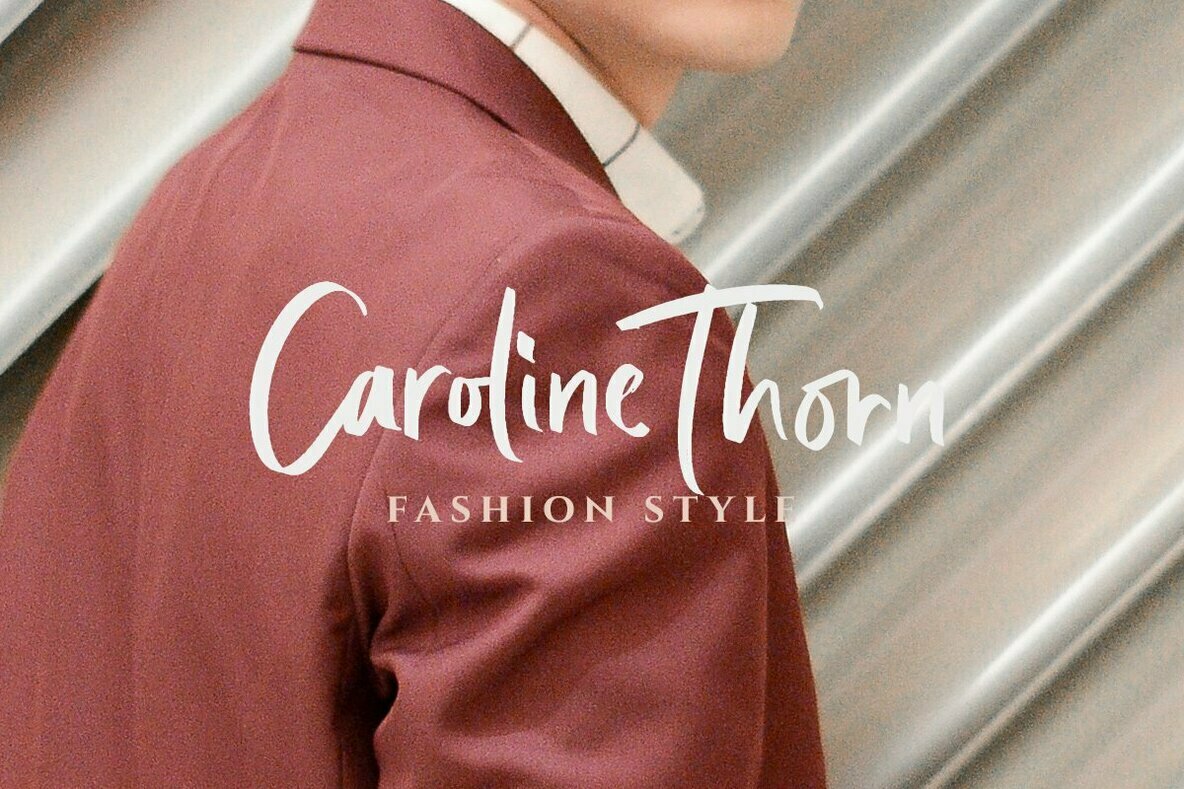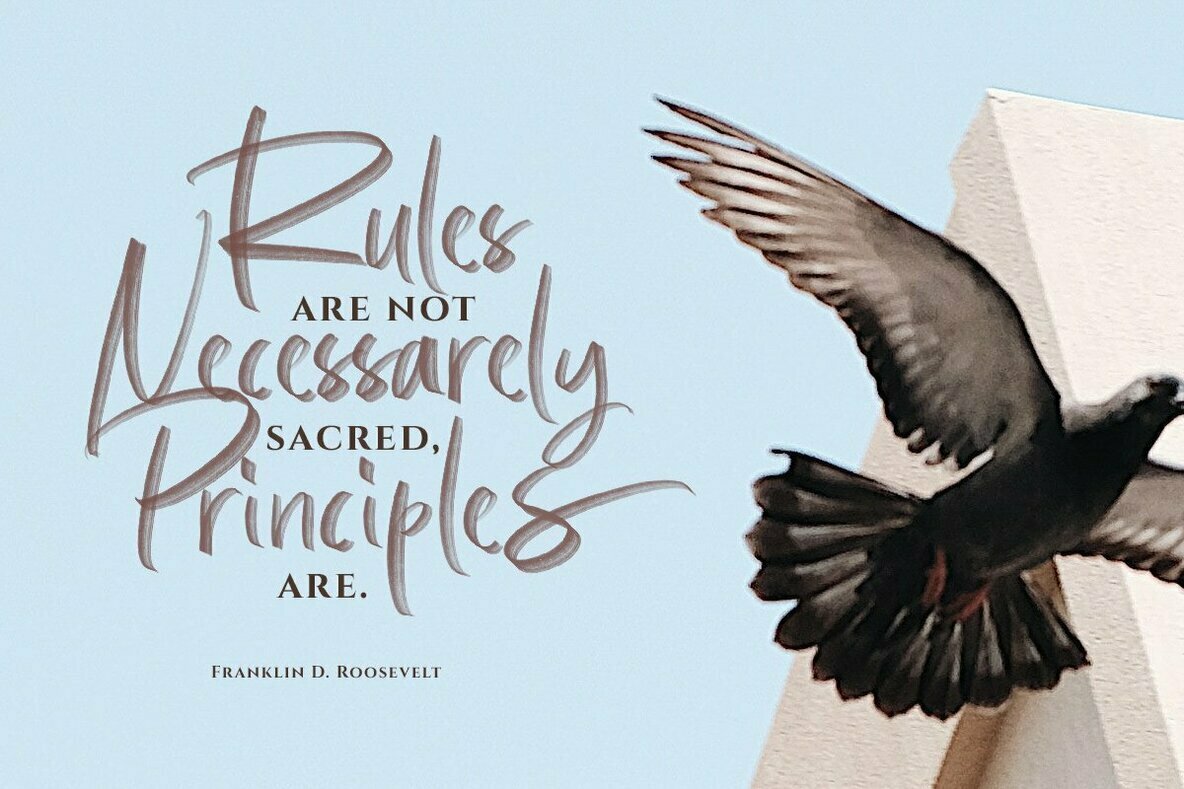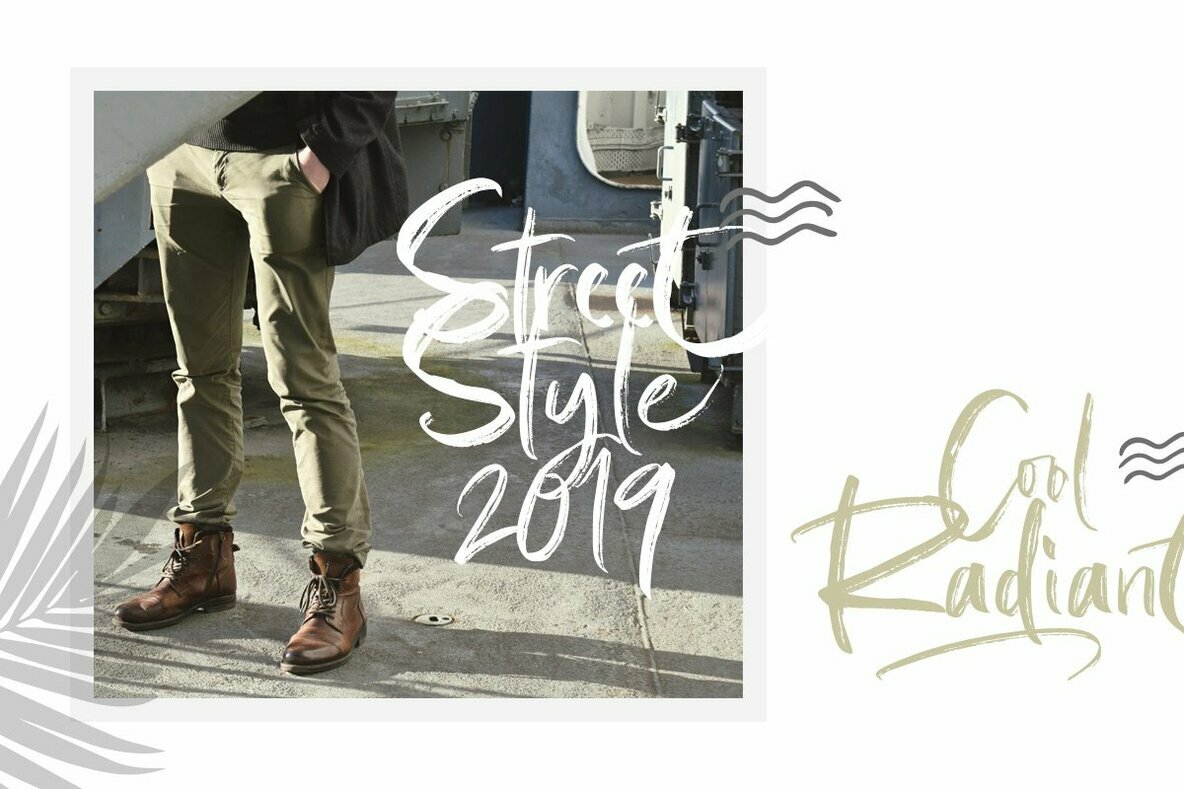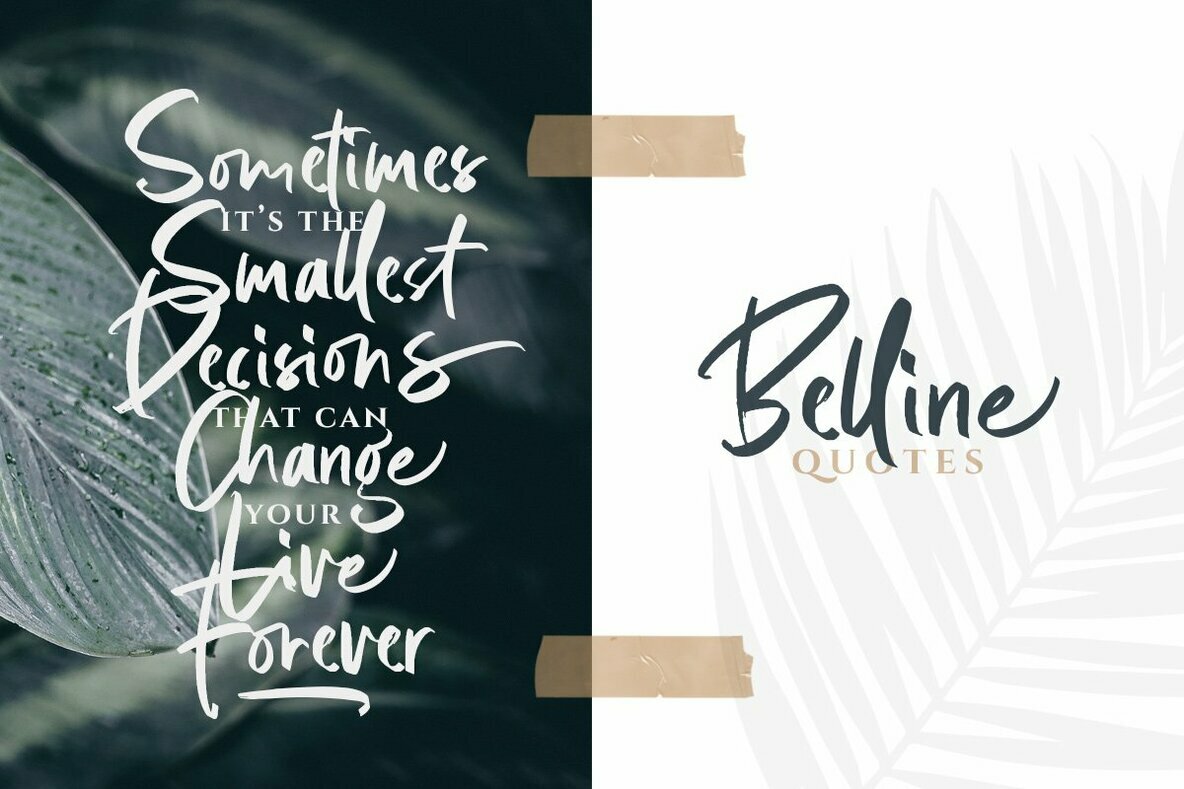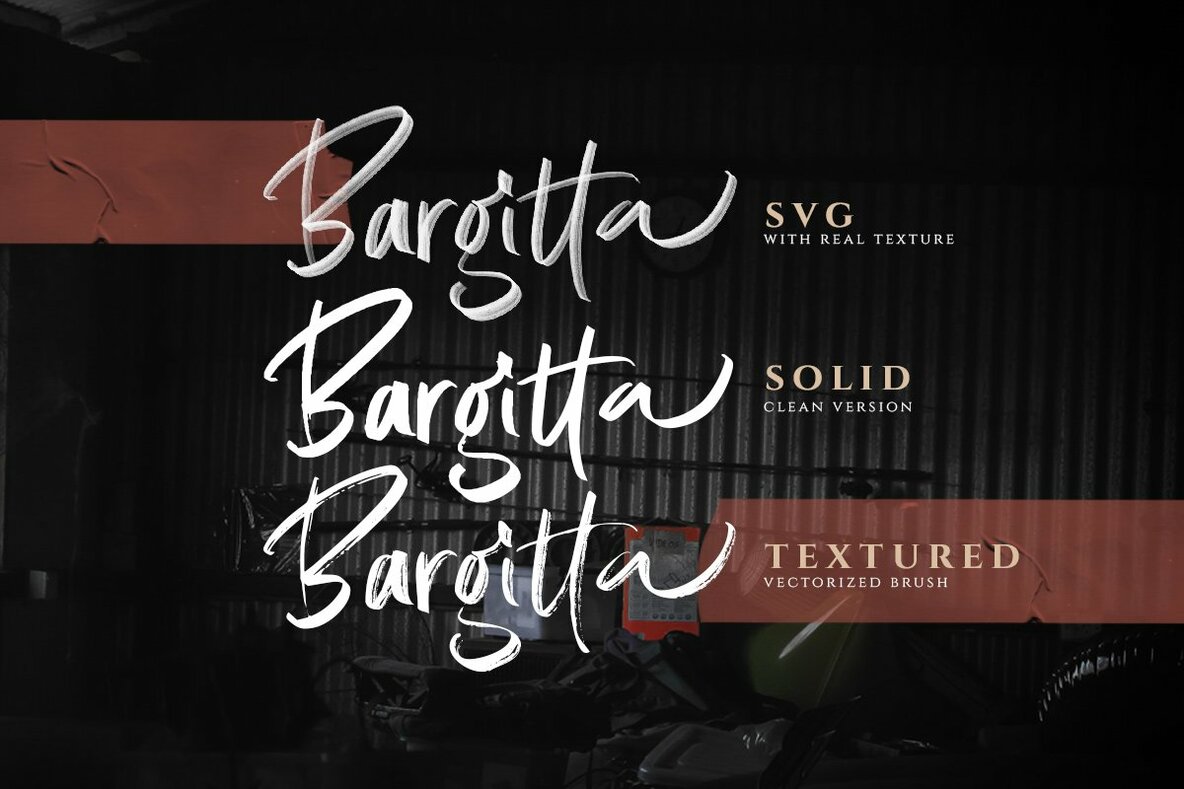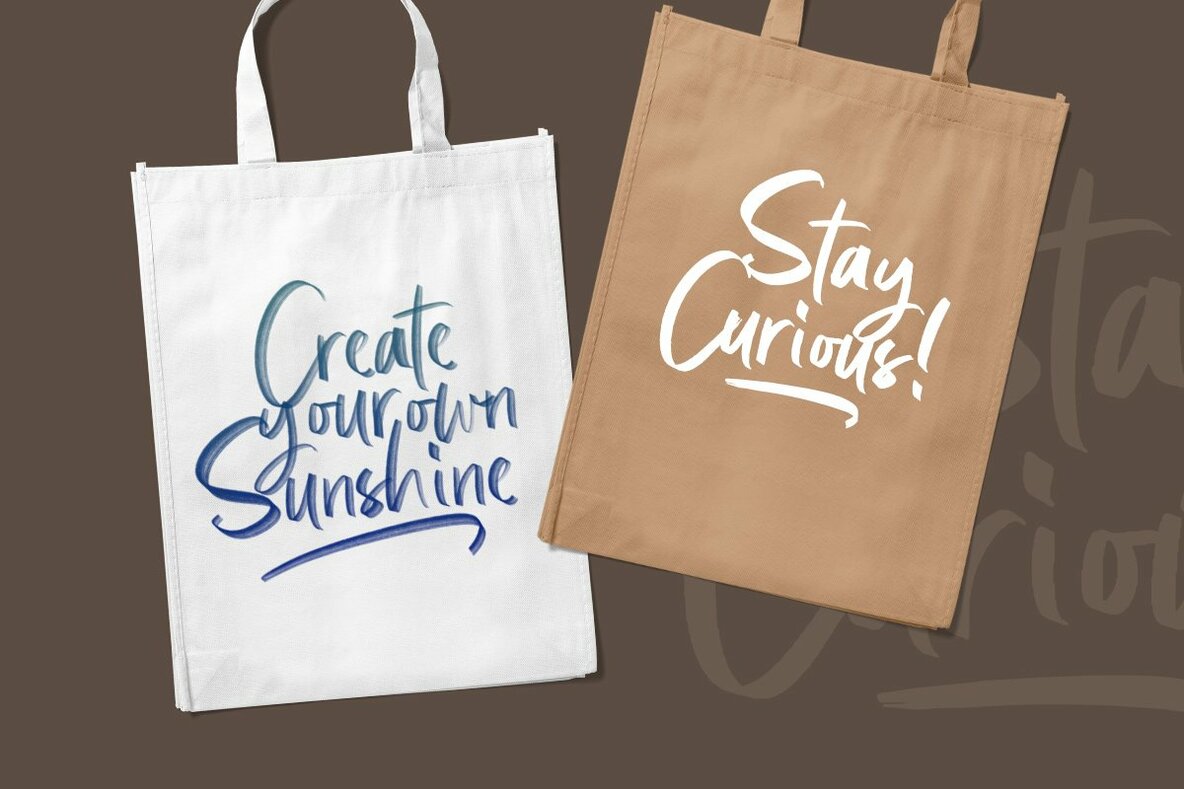
Bargitta Script - SVG Font
Bargitta Script by Letterhend Studio is a sophisticated font that effortlessly combines artistic flair with practicality, offering three distinctive styles to suit a wide range of design projects: Textured SVG, Textured Vector Rough, and Solid. This script typeface exudes charm and elegance, making it an ideal choice for corporate branding, logos, documents, social media design, presentations, and print design. Its adaptability extends to web projects, ensuring consistency across various digital platforms. With its comprehensive range of features and styles, Bargitta Script is poised to enhance any project, delivering both aesthetic appeal and functional versatility.Bargitta Script: Elegant Versatility for Diverse Designs